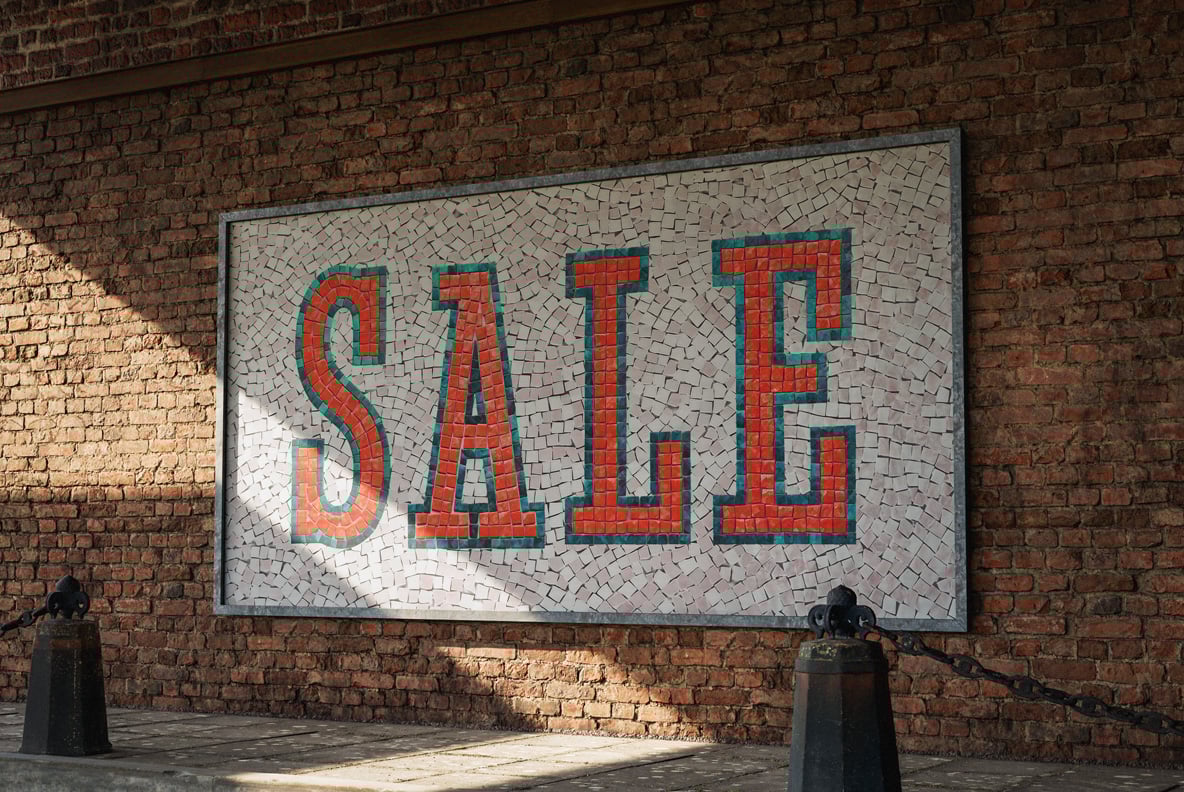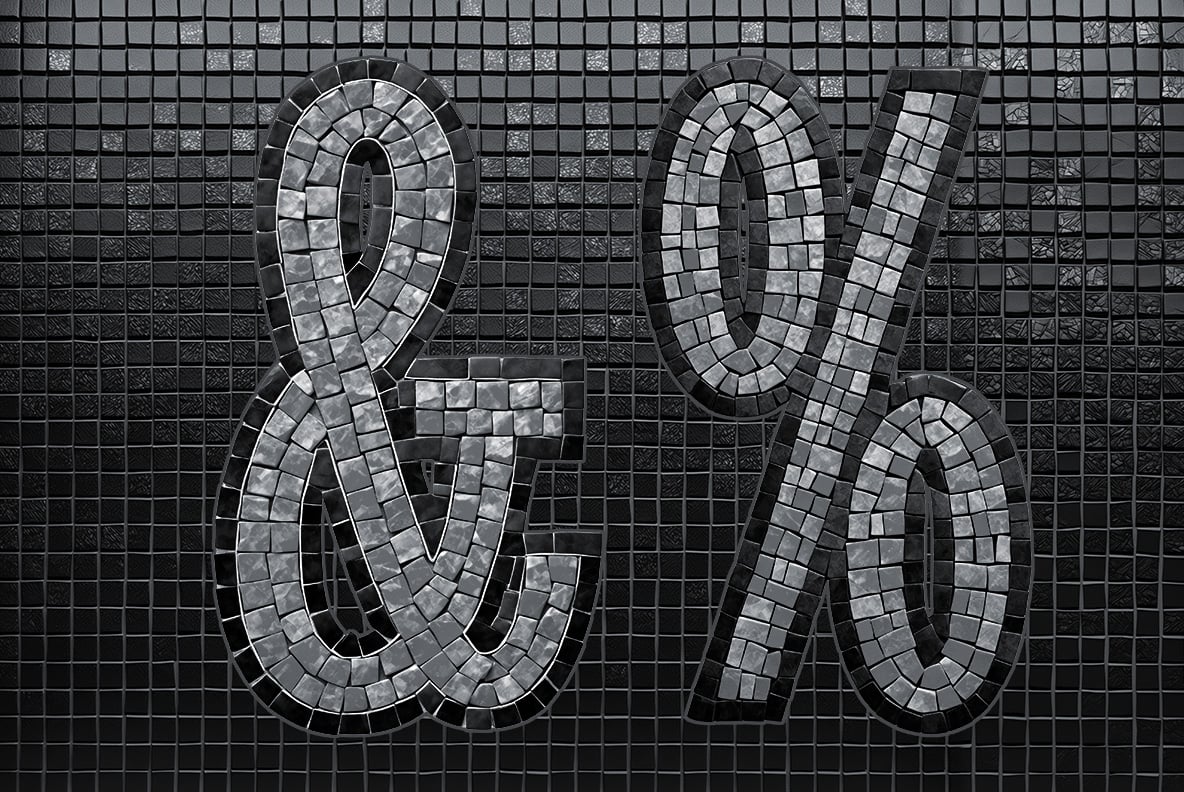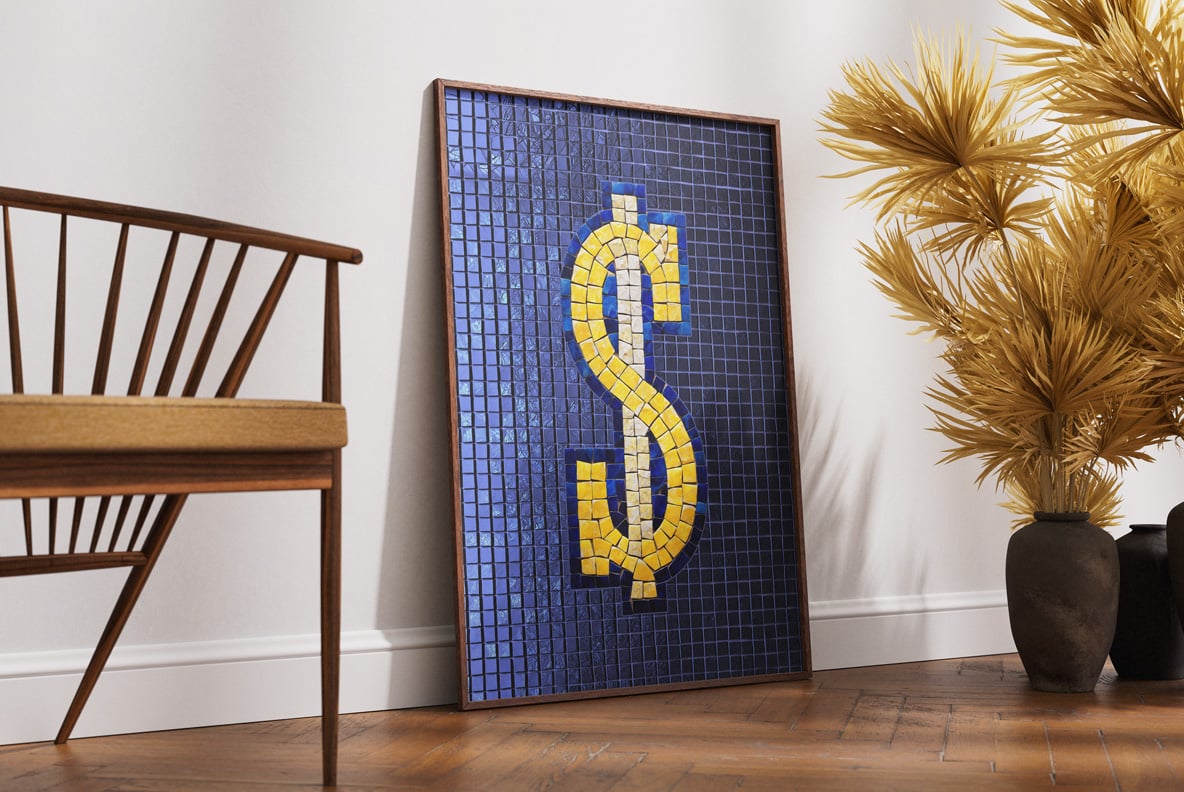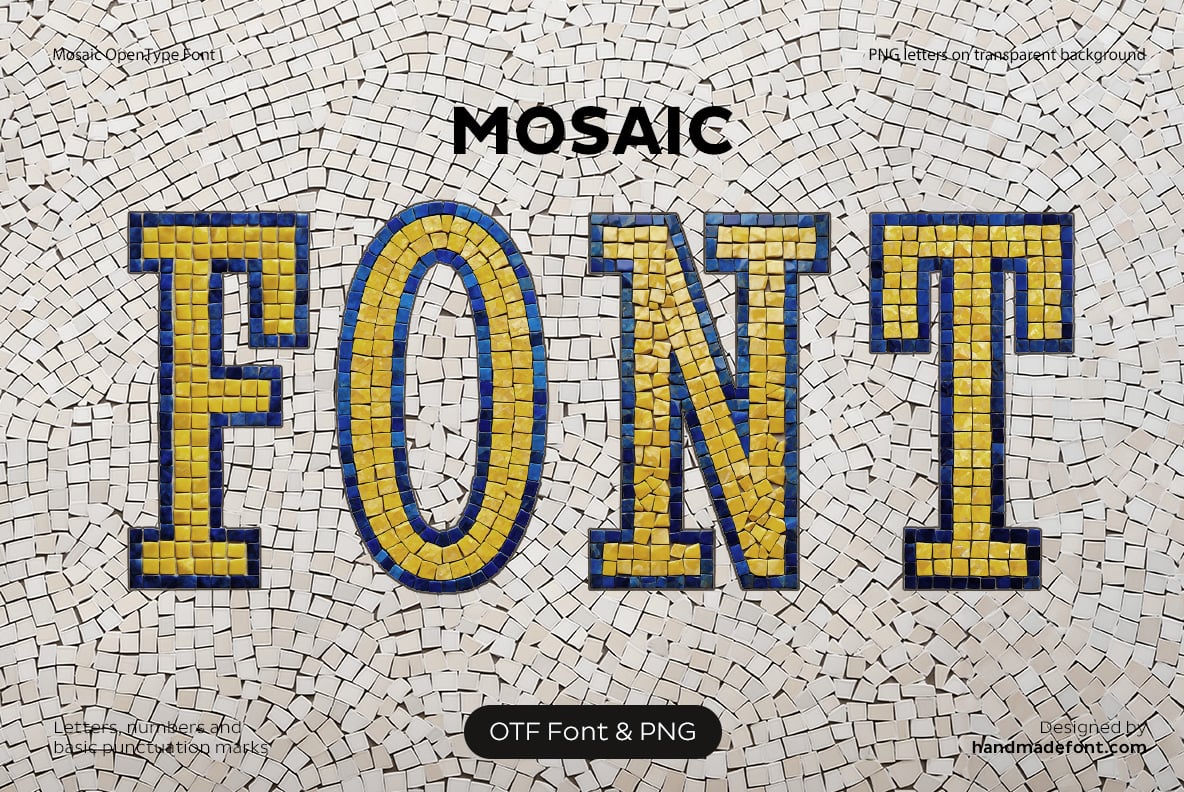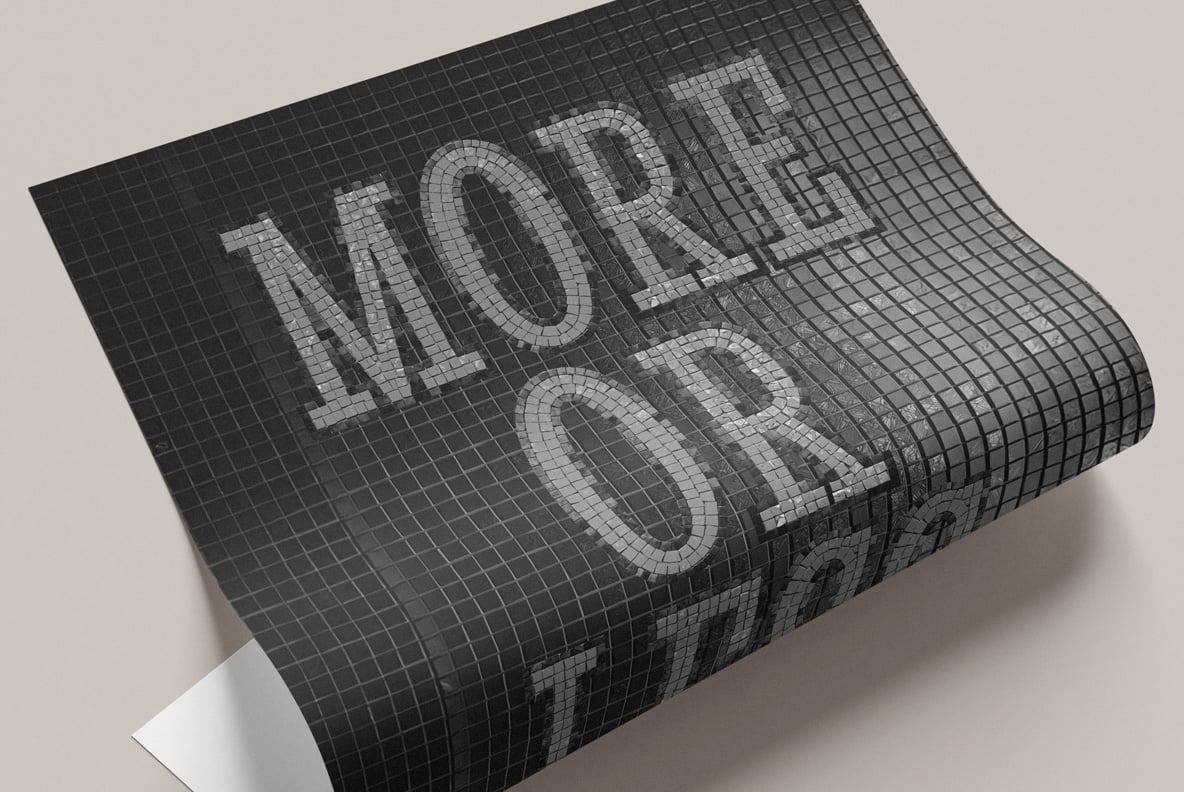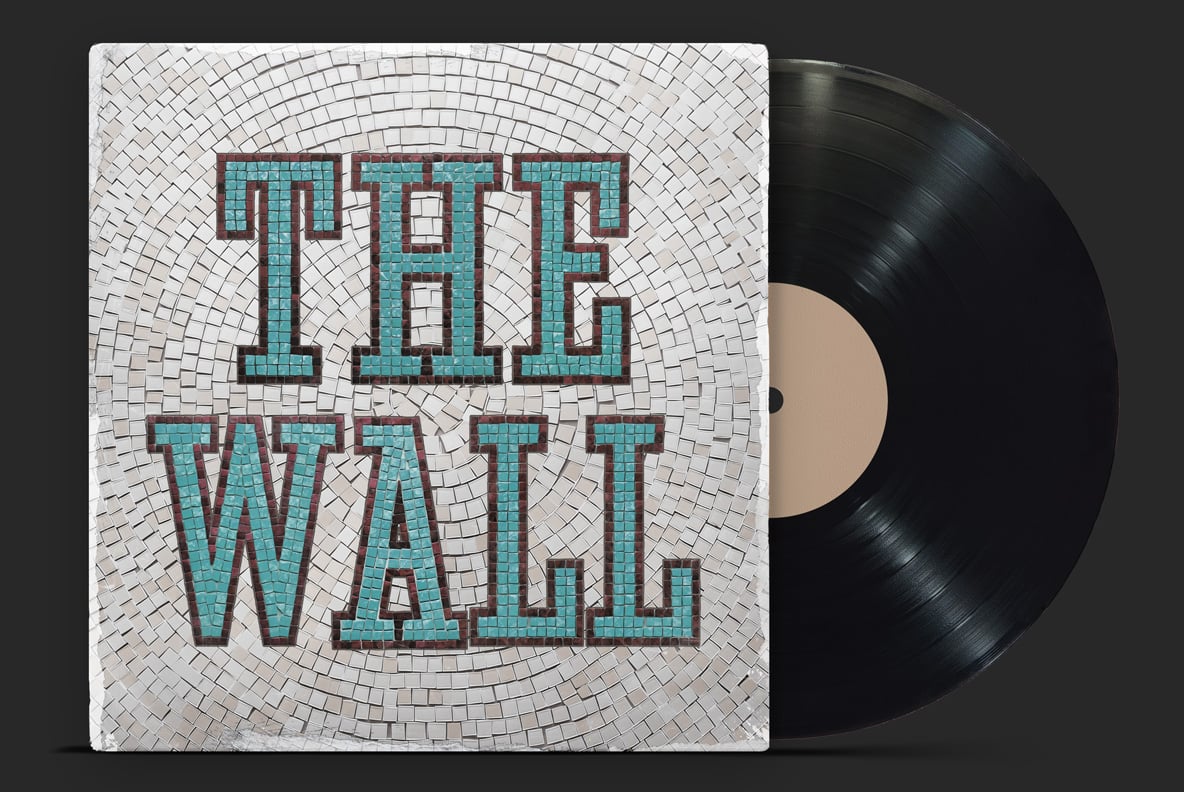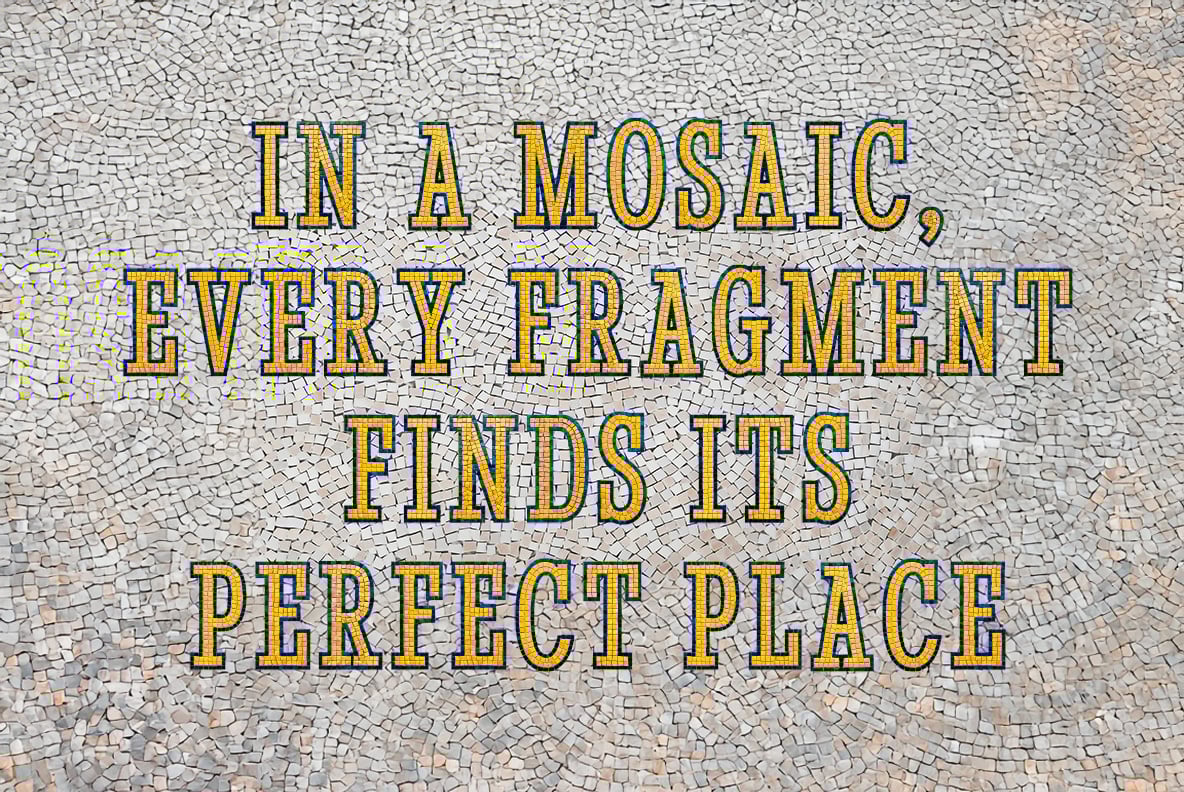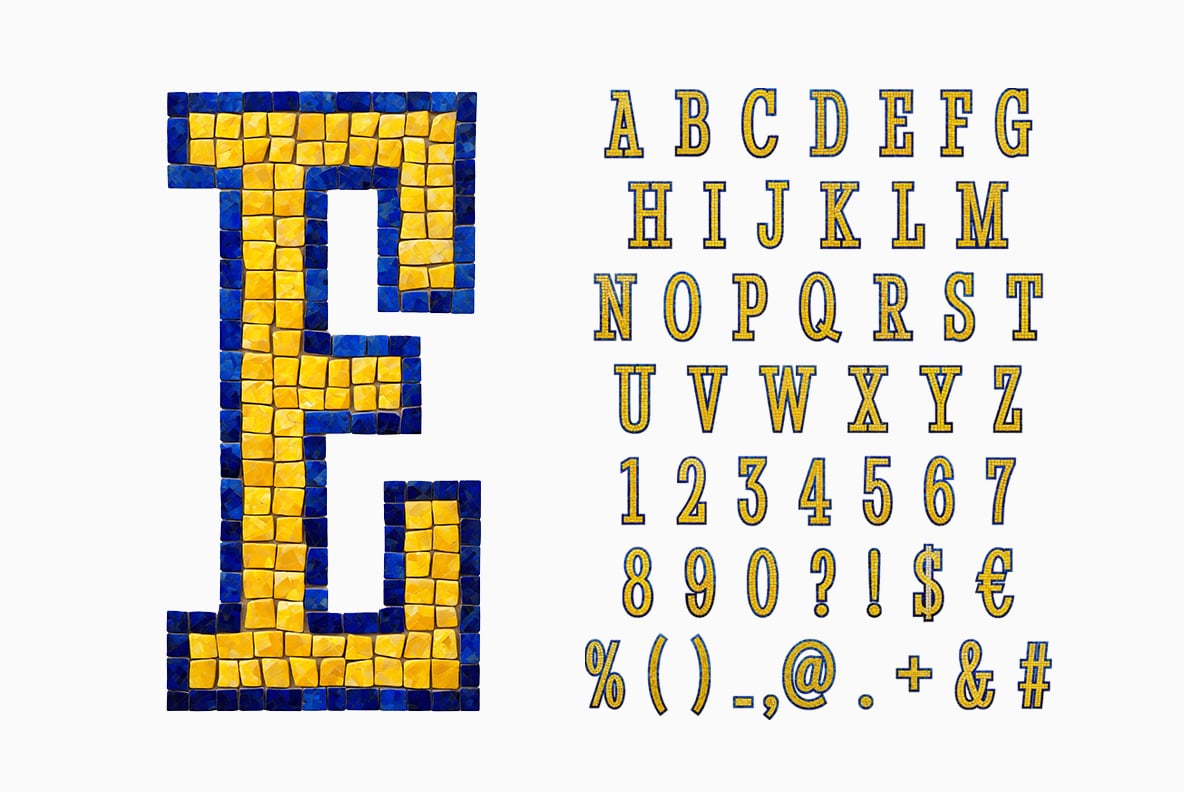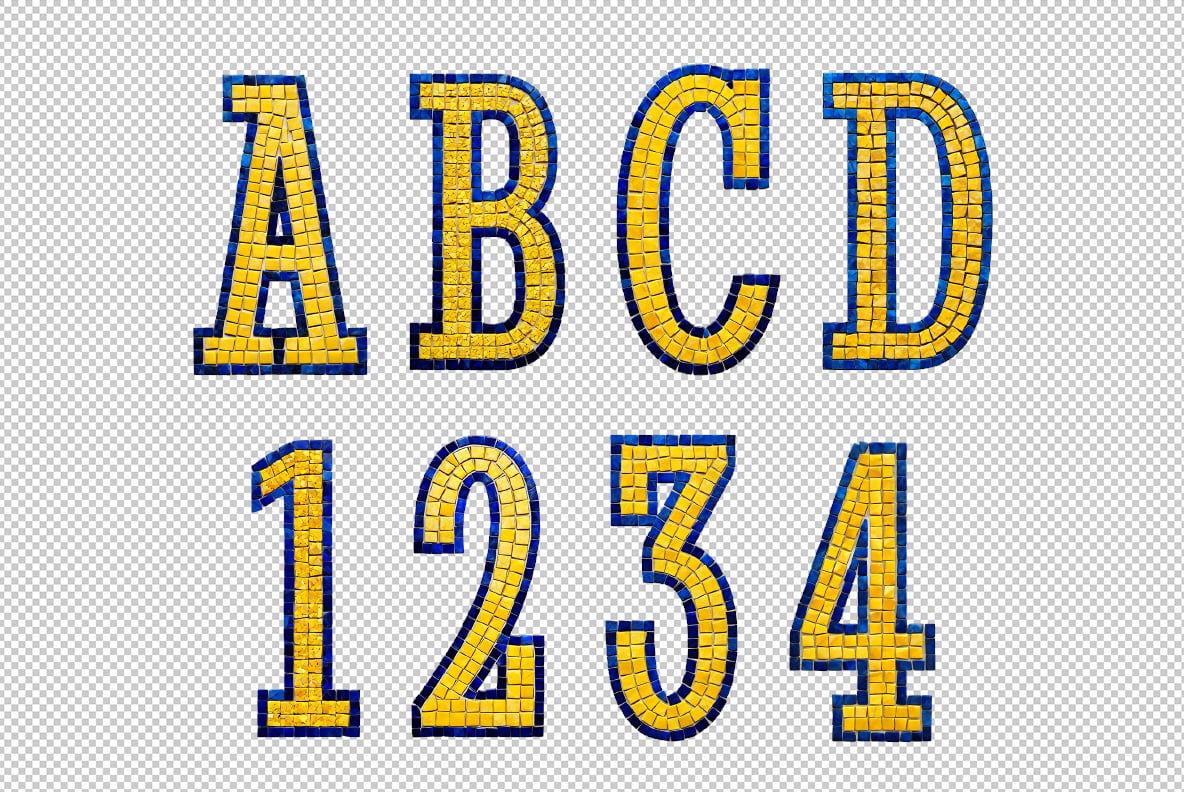
Mosaic Font
Beauty in every detail, the Mosaic Font captures the essence of intricate patterns and timeless artistry. Each letter is crafted from small, colorful mosaic stones, forming a stunning alphabet inspired by classic mosaic designs. Perfect for projects that celebrate texture, tradition, and creativity, this font adds a unique touch to posters, branding, invitations, and more. With its rich patterns and handcrafted feel, Mosaic Font transforms words into art, infusing any design with elegance and charm.
A high definition OpenType Font. Contains uppercase characters, numerals and basic punctuation. (Draw height roughly 800 pixels). All letters and glyphs that comprises this font you can see on the preview.
Others : ! ? - . ' $ € % & #